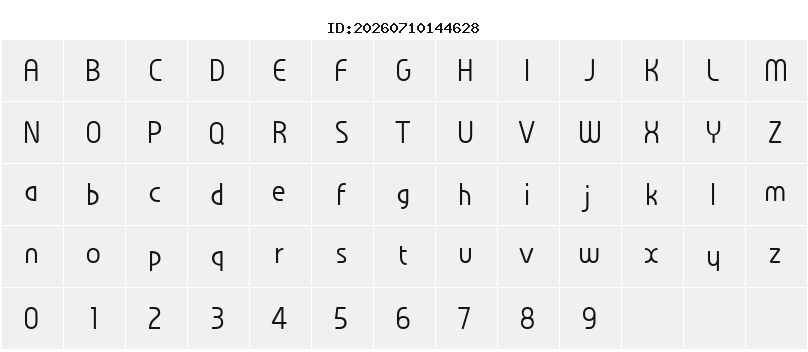
Familian Son Preview
About Familian Son.ttf
Familian Son.ttf is a modern, elegant sans-serif font designed for ultimate readability and visual harmony. Perfect for branding, headlines, web design, and print materials.